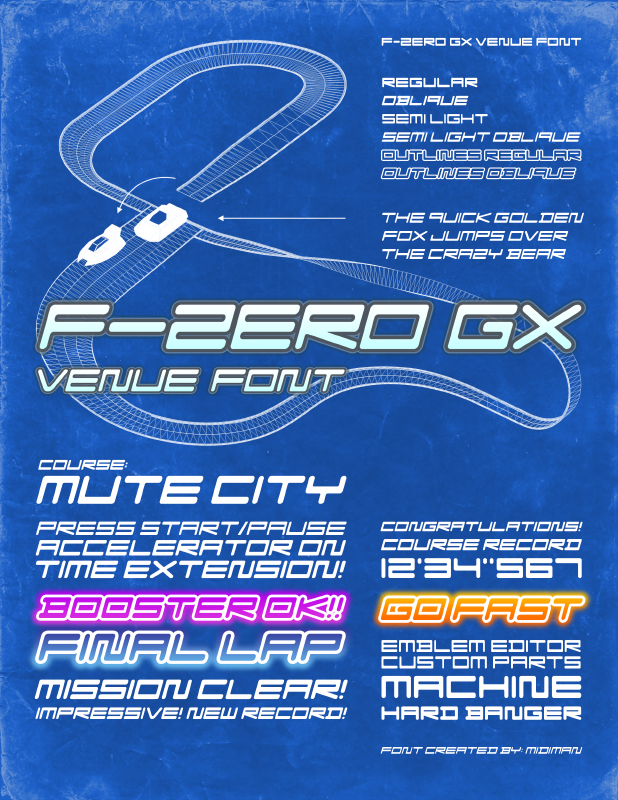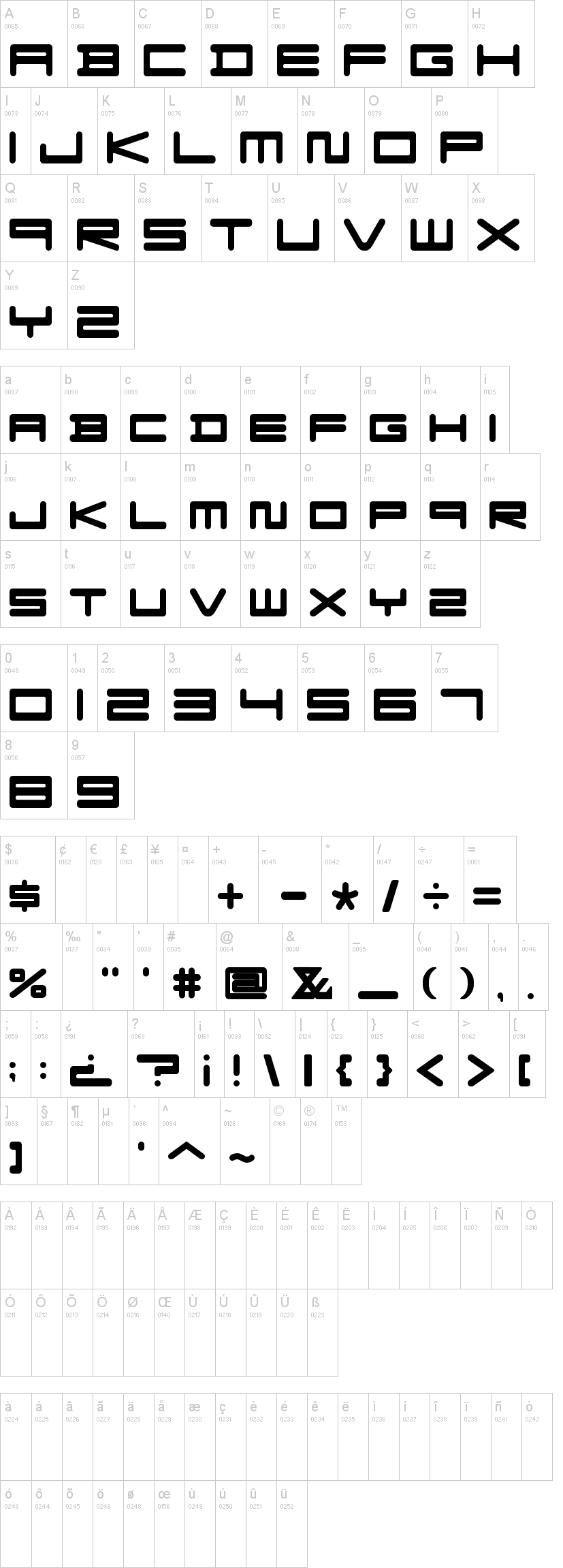
Venue Font/FZGXVenueFont-SemiLightOblique.otfVenue Font/FZGXVenueFont-Regular.otfVenue Font/FZGXVenueFont-Oblique.otfVenue Font/FZGXVenueFontOutlines-Regular.otfVenue Font/FZGXVenueFontOutlines-Oblique.otfNote of the authorThis font was inspired by the font used to display the course venue in the racing game F-Zero GX.
Includes the Venue Font and the Menu Font and several variations.